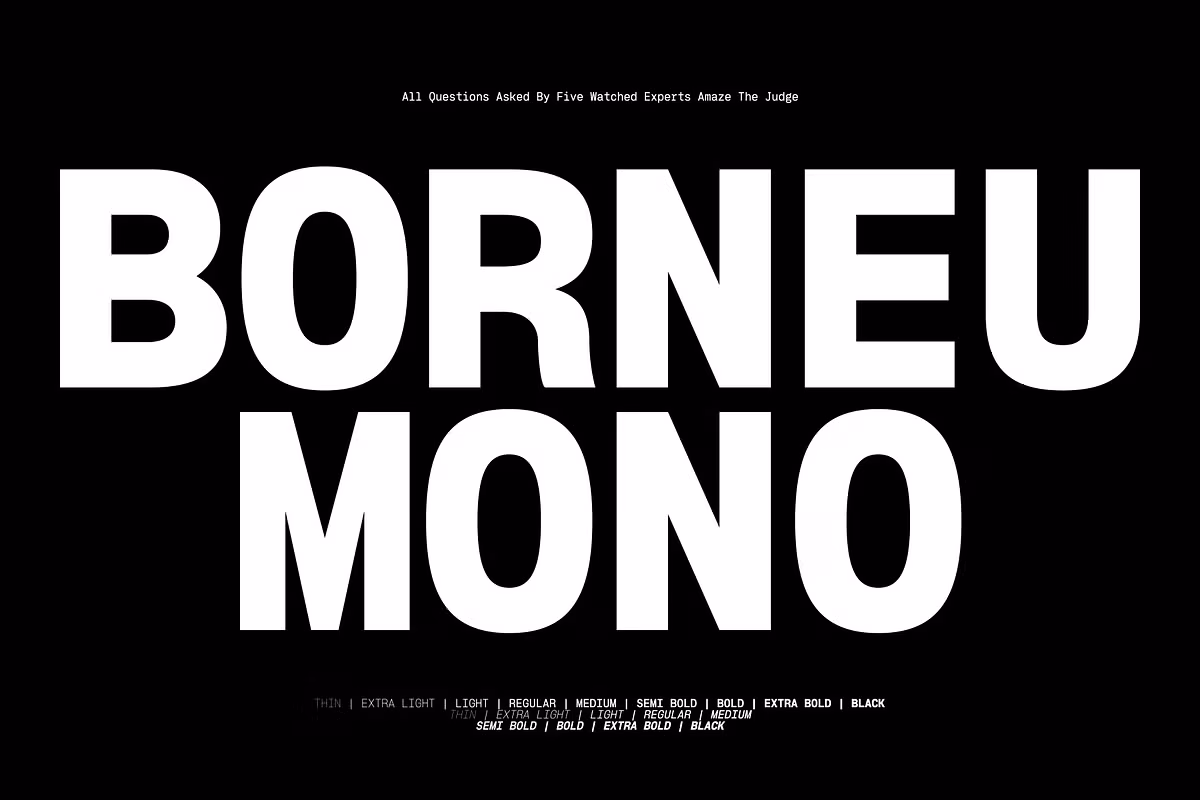
Clean, modern, and functional, Borneu Mono Regular Font Free Download is a monospaced typeface designed for clarity and readability in code, digital interfaces, and design projects that require uniform spacing. Perfect for software development, coding, technical documentation, and graphic design, this font brings a sleek, contemporary look to your typography.
With its fixed-width design, Borneu Mono Regular ensures that each character occupies the same amount of space, making it ideal for precise and organized layouts. Whether you’re working on a website, app design, or programming project, this font provides a professional, polished feel.